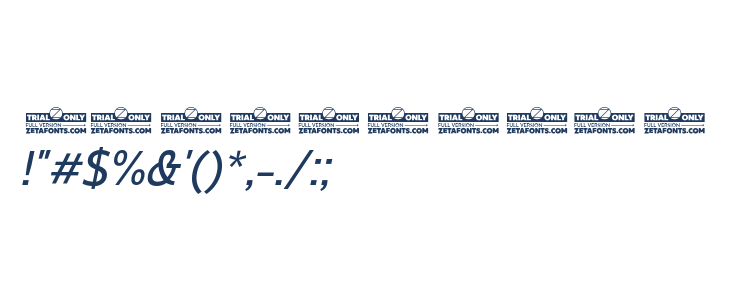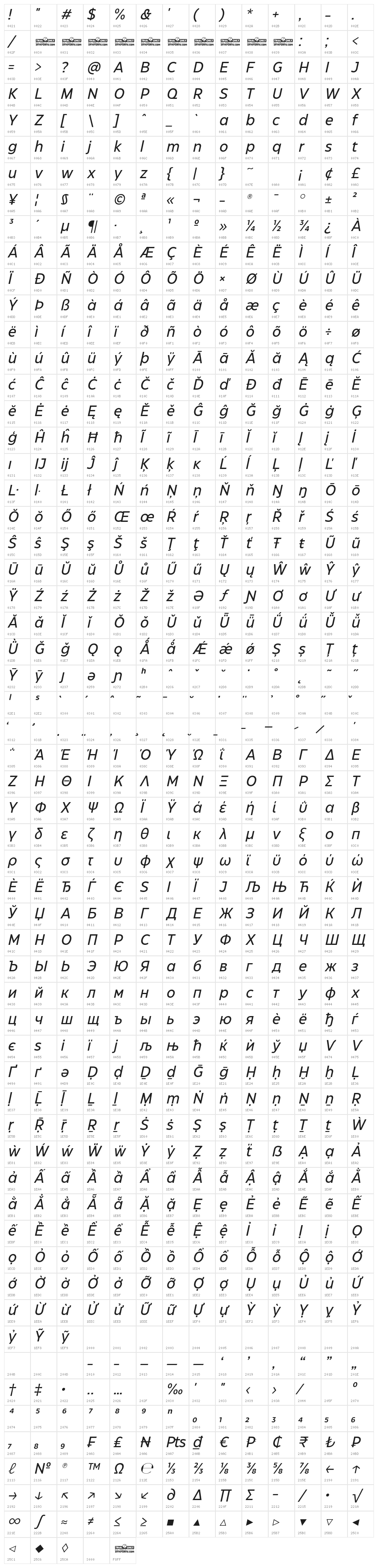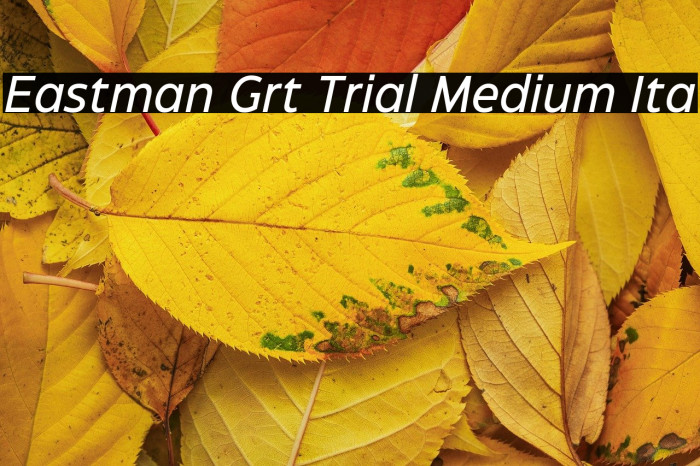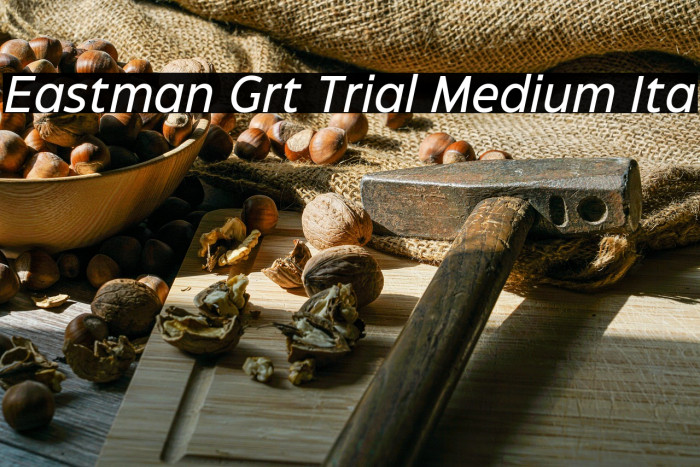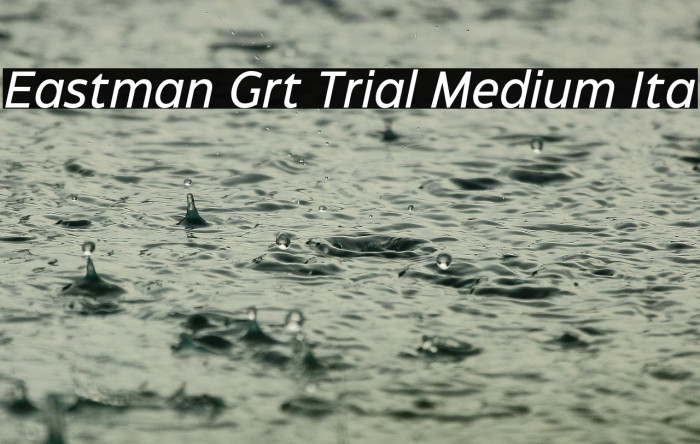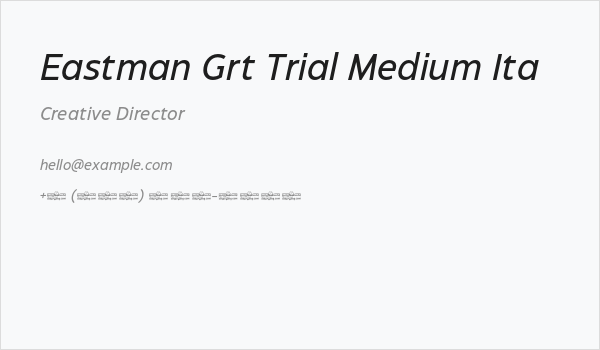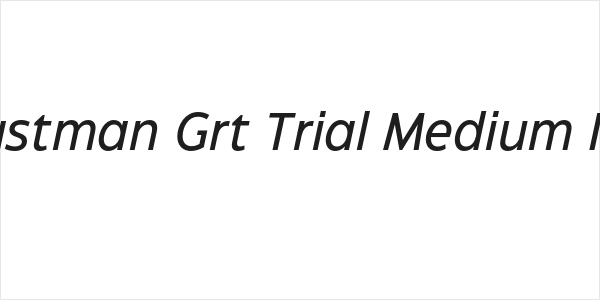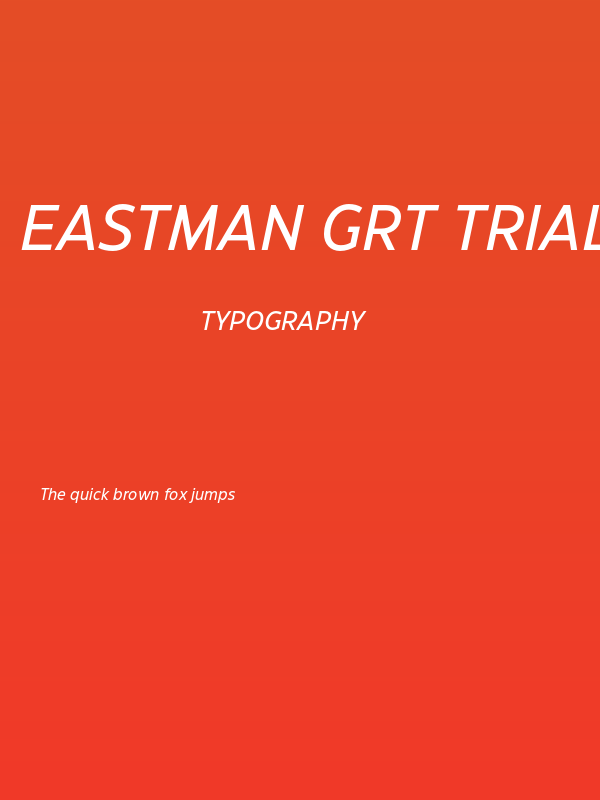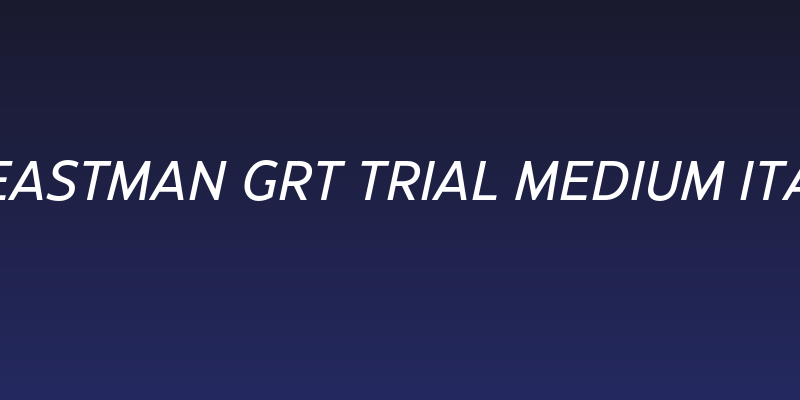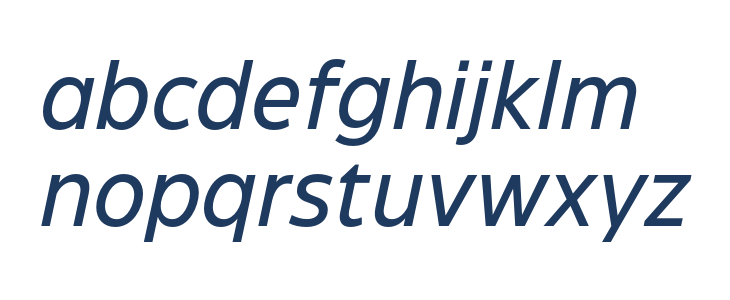
Eastman Grt Trial Medium Ita Font
Eastman Grt Trial Medium Ita Description
This font features a sleek and modern design with a slight italic slant, giving it a dynamic and forward-moving appearance. The characters are well-proportioned with a consistent stroke width, contributing to a clean and professional look. The uppercase letters are bold and commanding, while the lowercase letters maintain a friendly and approachable feel. The numerals are clear and easy to read, making them suitable for various applications. Special characters are included, enhancing the font's versatility. Overall, this font balances elegance and readability, making it suitable for both digital and print media.